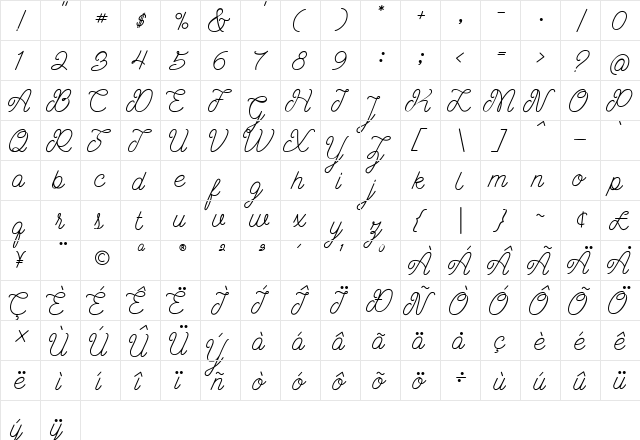
Ariana Regular
| Foundry | Ian Mikraz |
| Designer | Ian Mikraz |
Design Context for Ariana Typeface
Ariana is a composed and adaptable typeface that performs quietly and consistently across a wide range of design contexts.